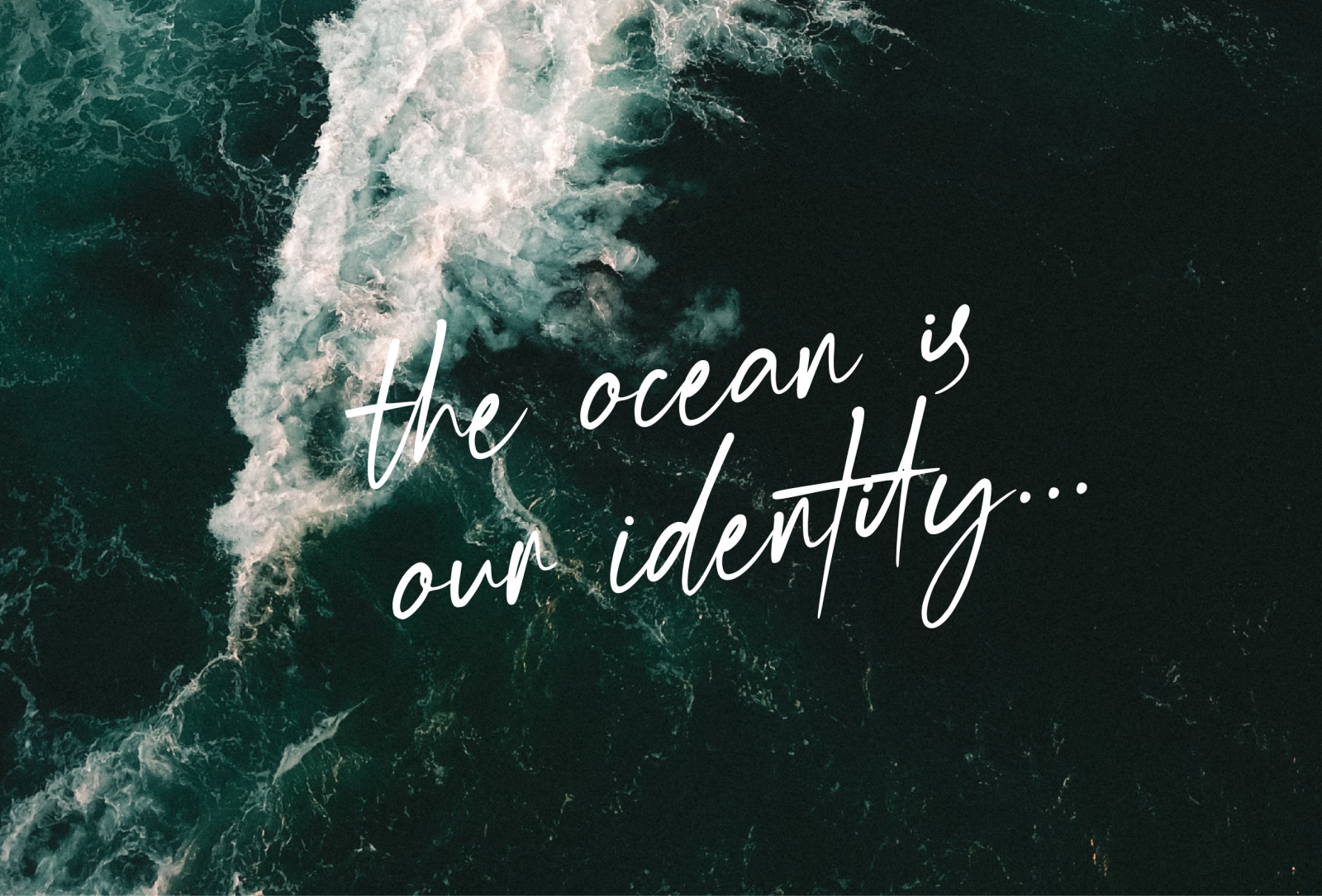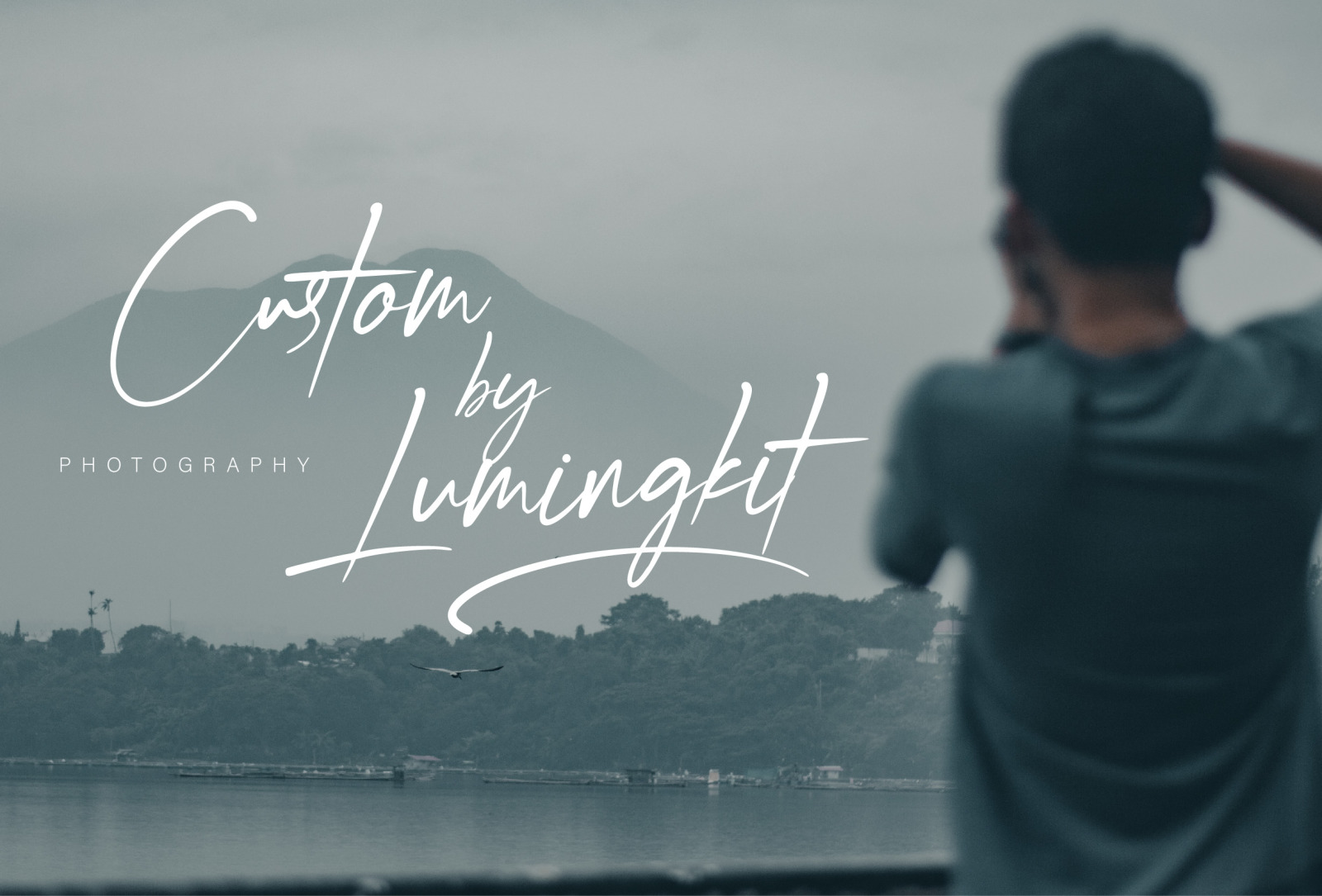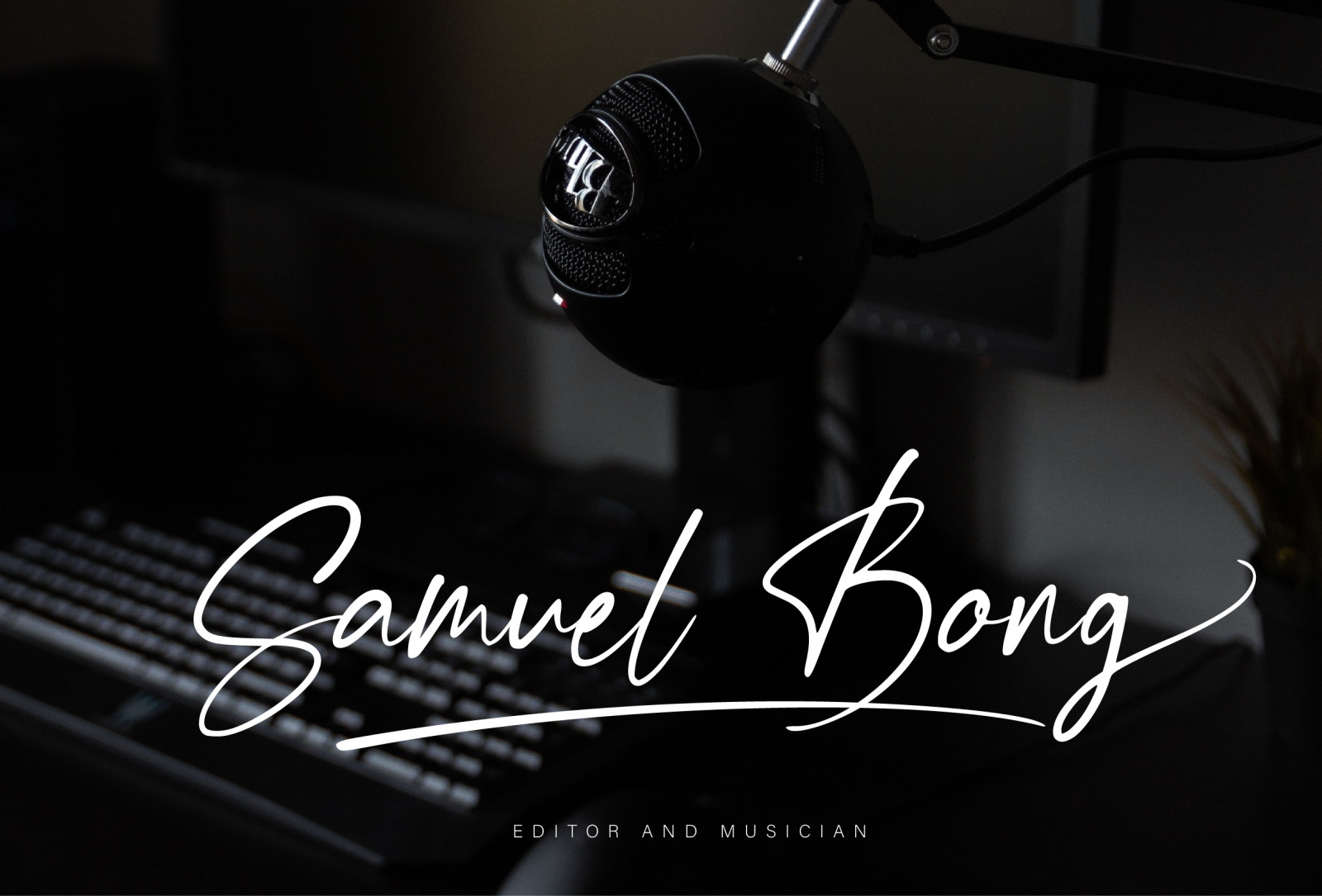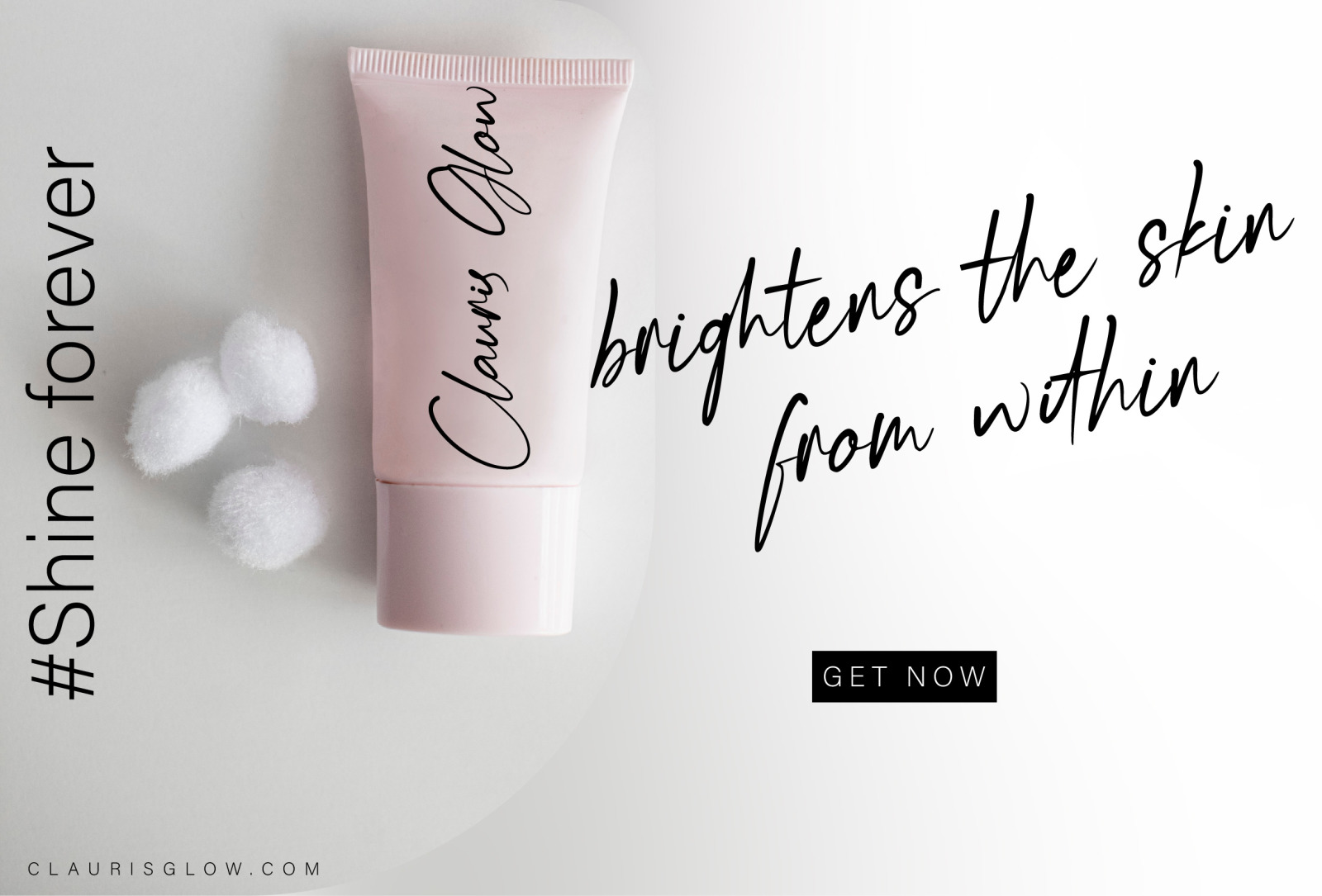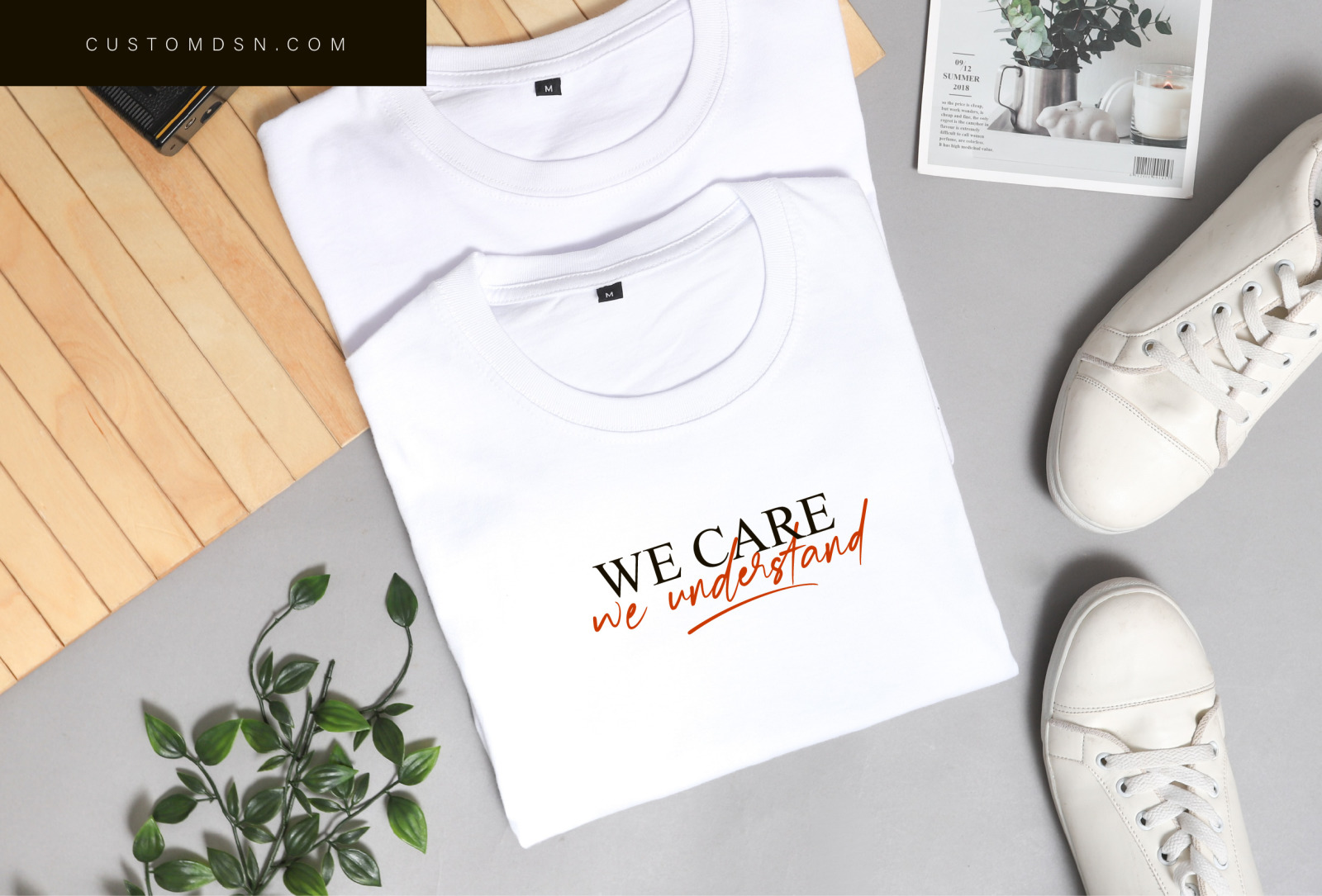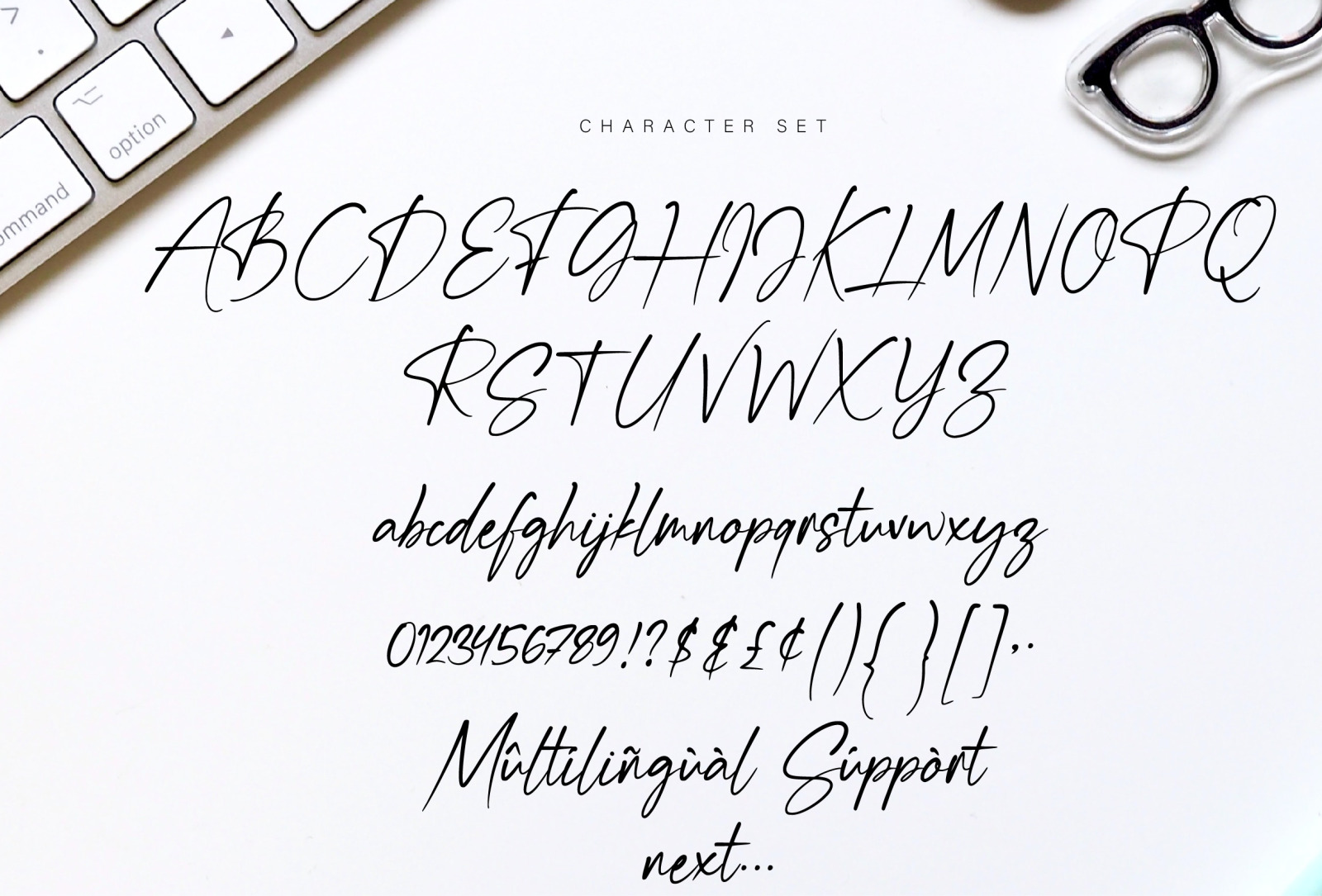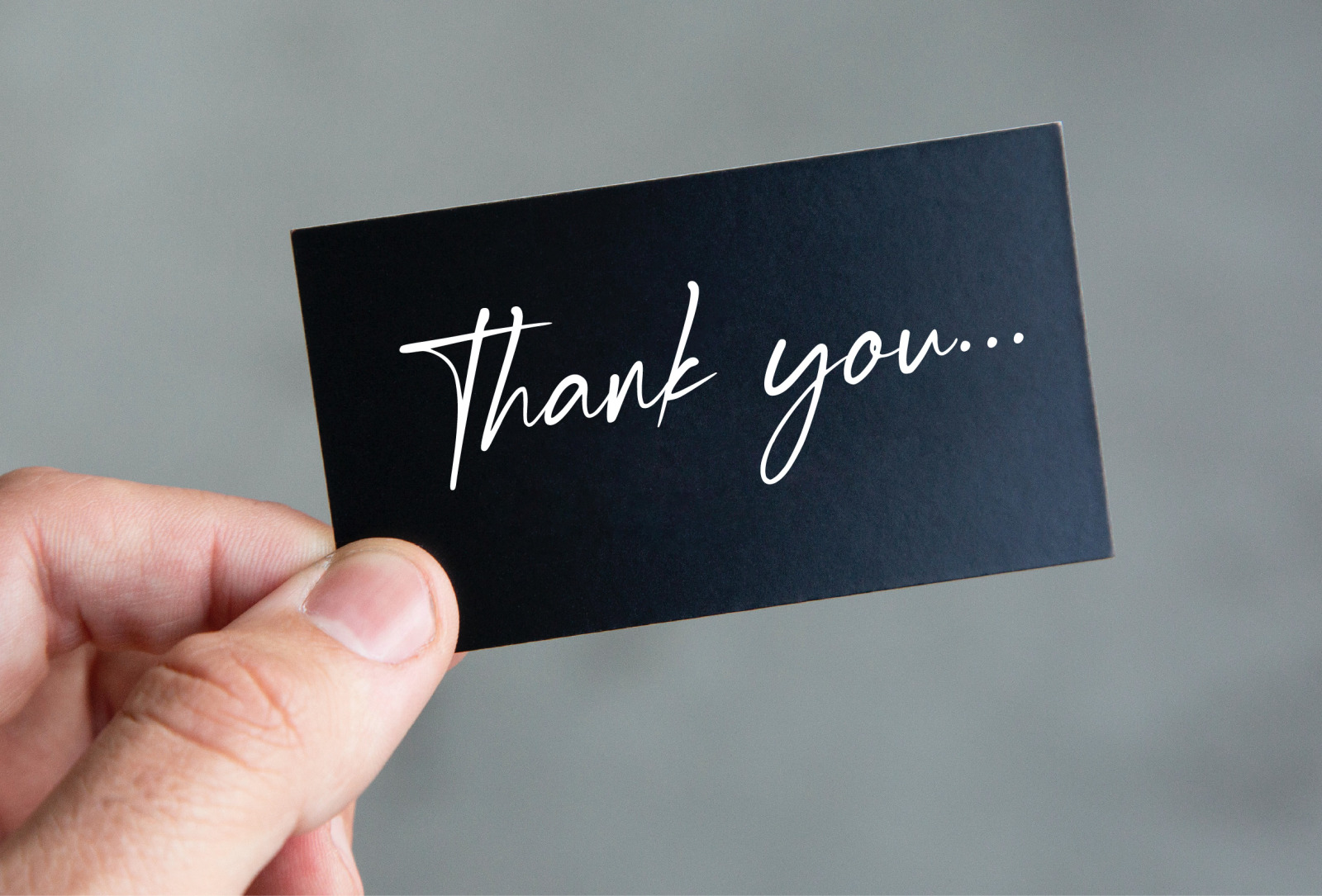
Collumbia - Handwritten font script
Collumbia is a script typeface with digitally drawn strokes with a brush preasure that give the font a natural, realistic look Get a simple and fun digital script font touch with glyphs and open type features a Swash binding style, plus Added Ornament, Alternate and Ligature . This font is more decorative and artistic suitable for art or fashion brands. It can be used for various purposes. such as brand name, Wedding, Invitation, product promotion business, etc.
FEATURES;
-Uppercase, Lowercase, Foreign Support, Numbers and Punctuation.
-Alternative, Swash, Ligature & Ornament.